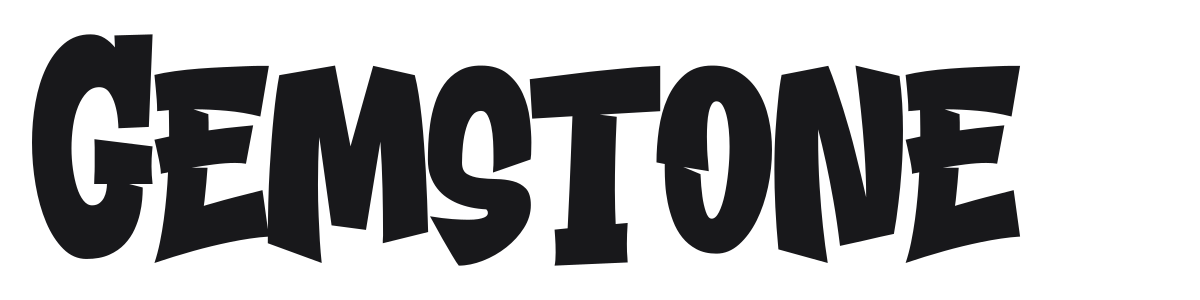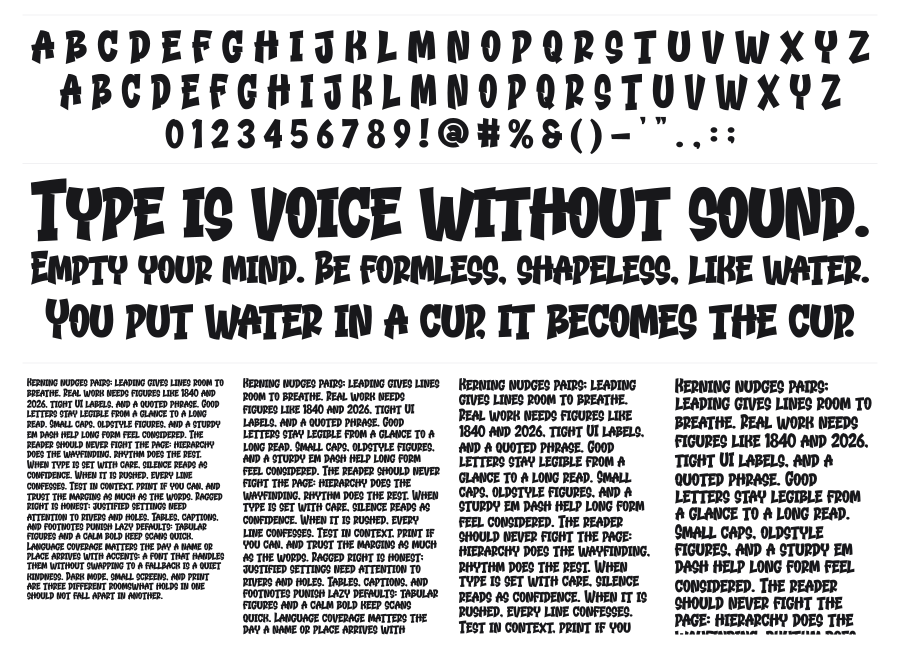
Gemstone
Gemstone is a heavy hand-lettered display face with thick, chunky strokes and irregular edges that give it raw comic-book energy. Characters bounce with a slightly unpredictable quality, somewhere between painted signage and vintage cartoon lettering. It brings immediate visual impact to posters, packaging, and titles that need personality.